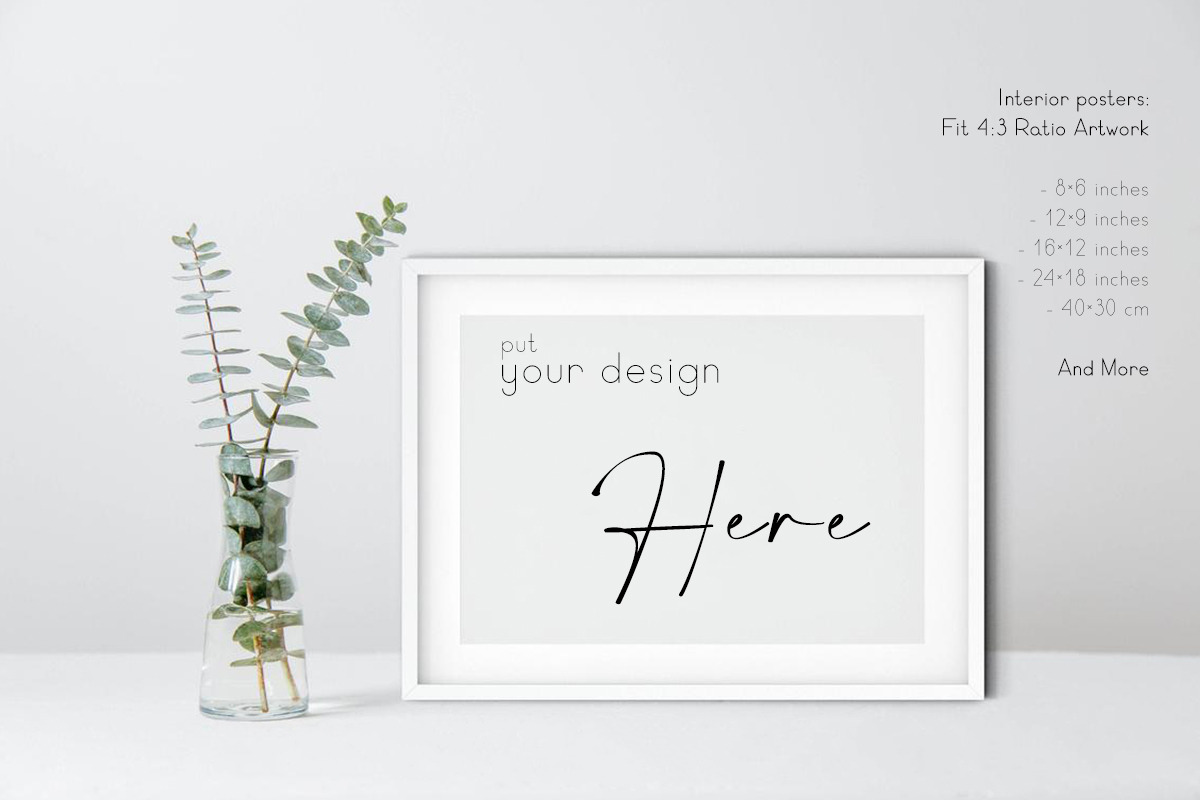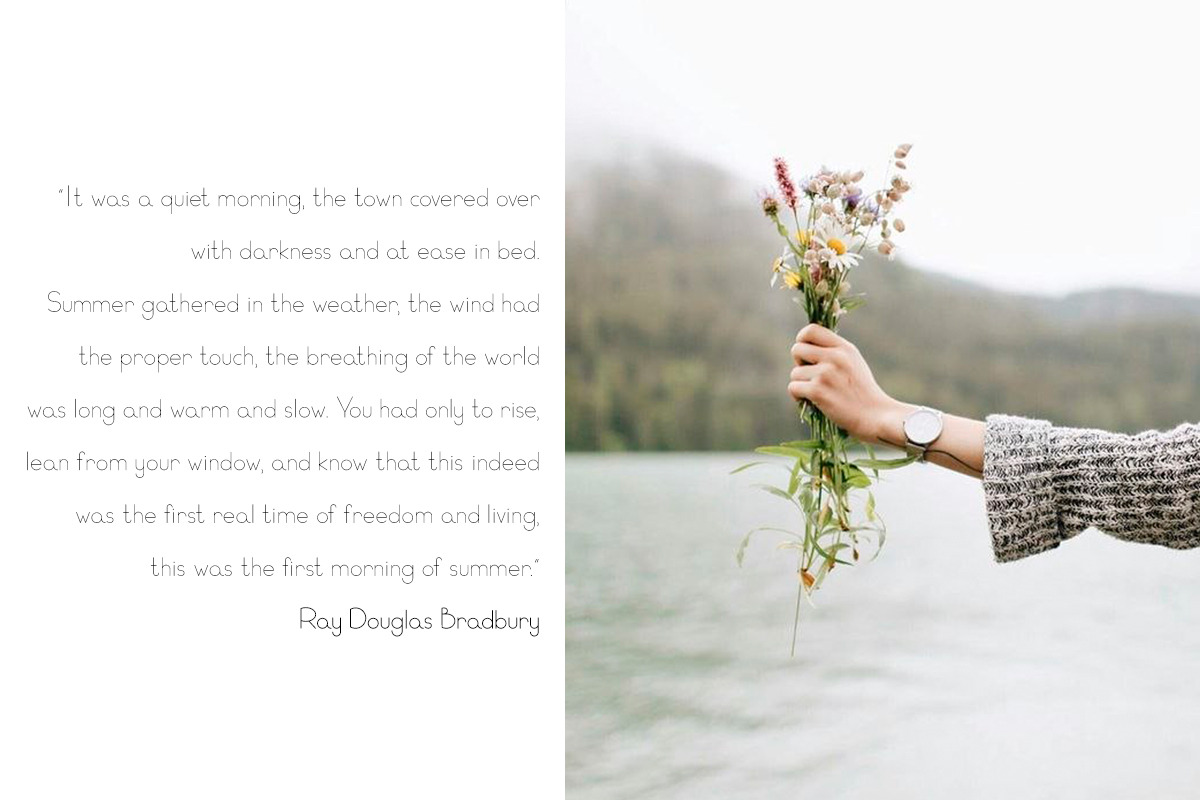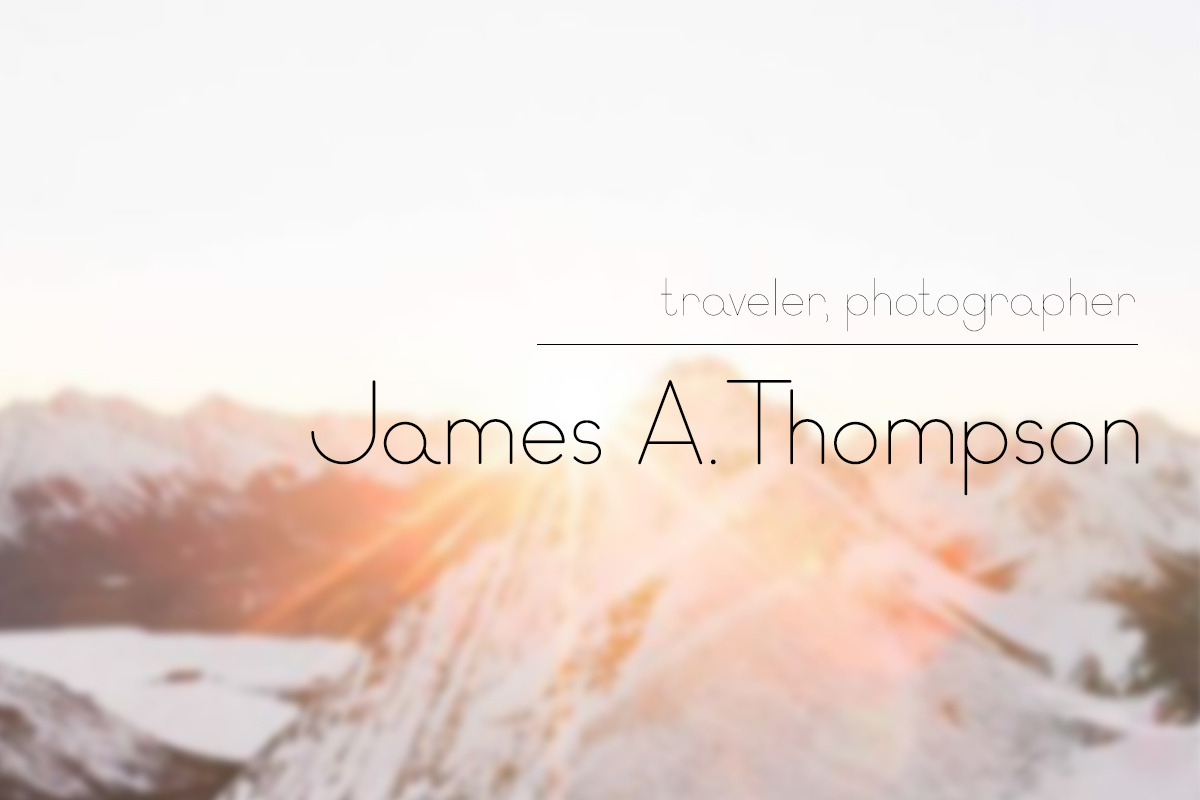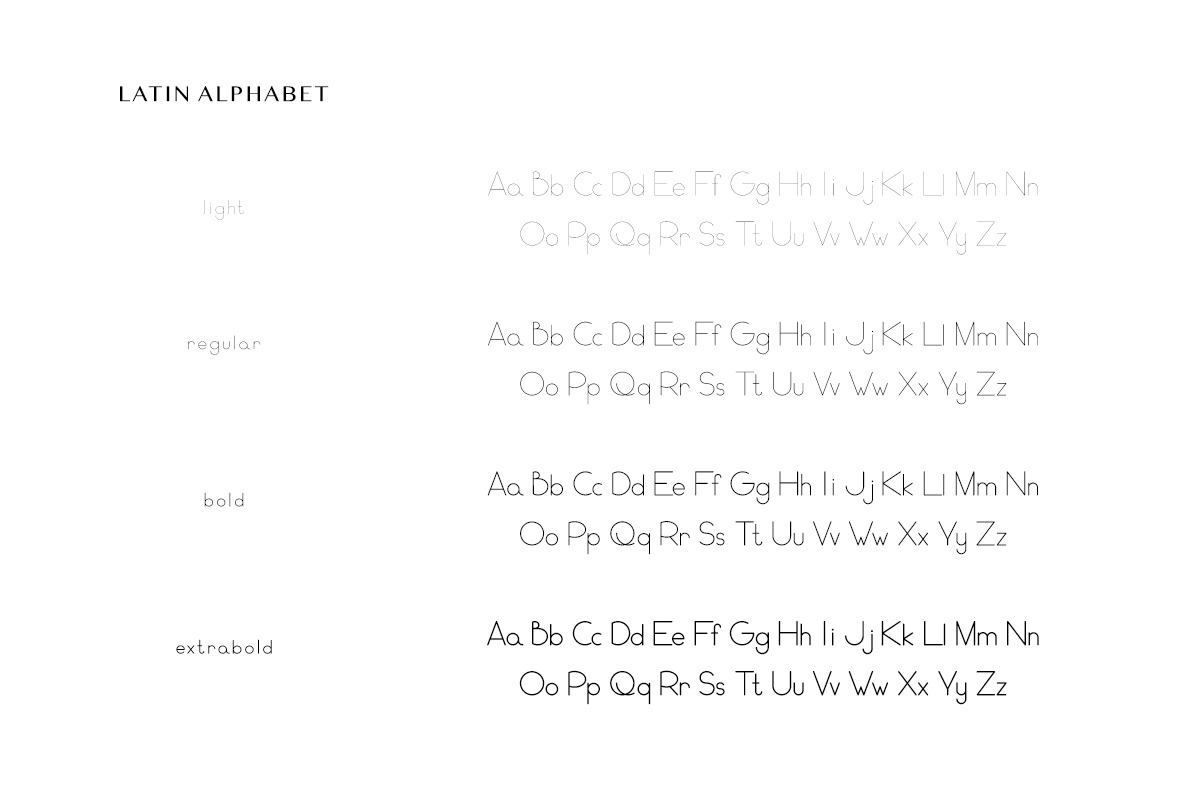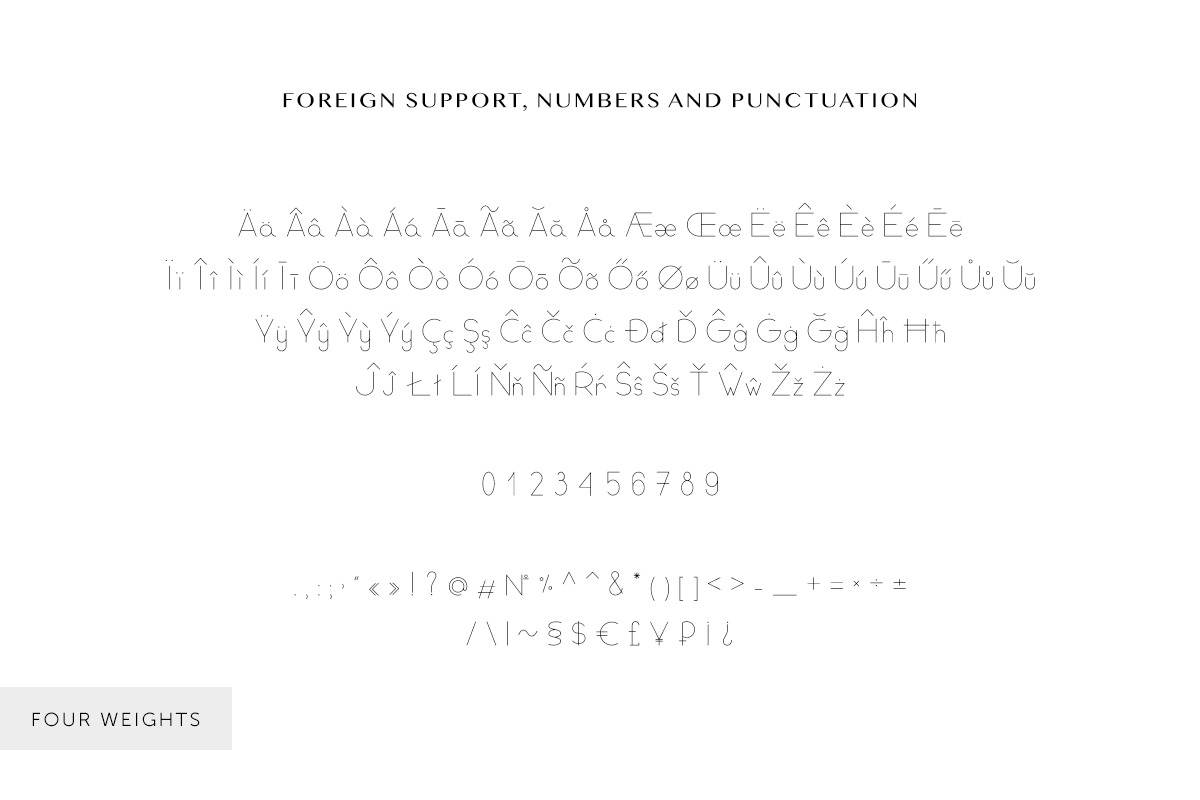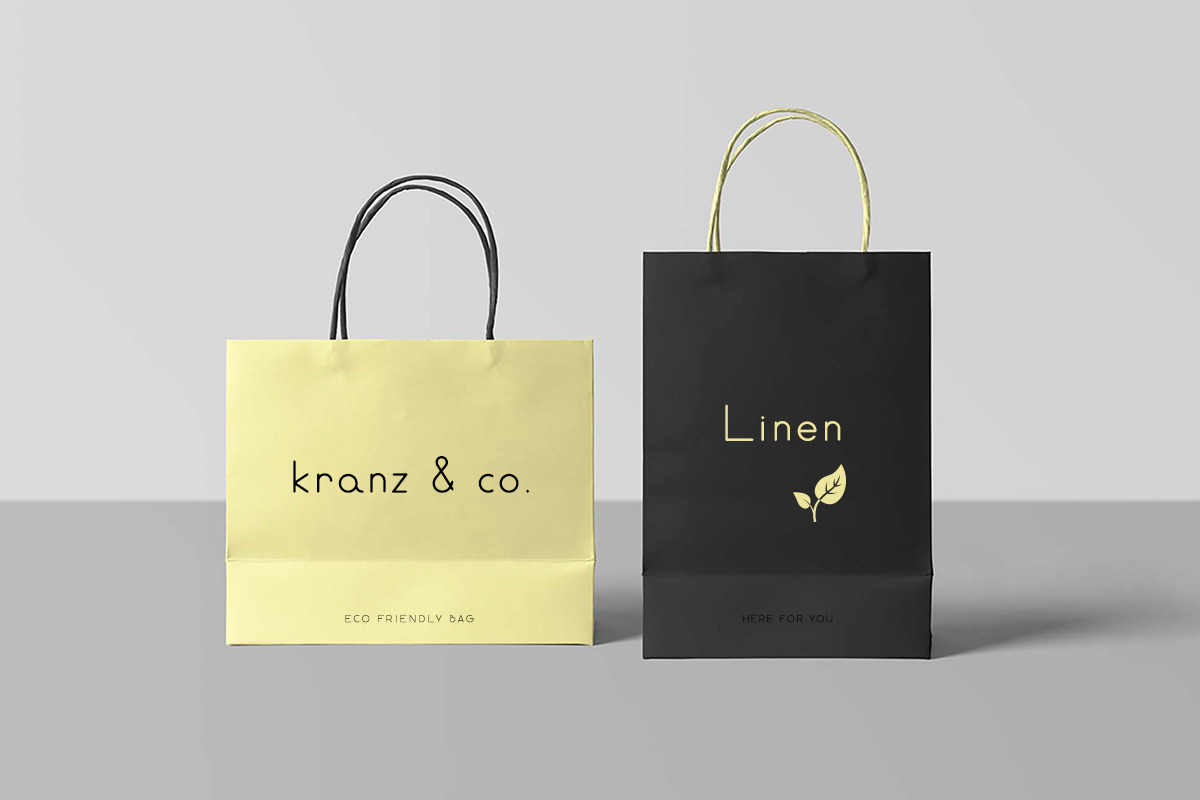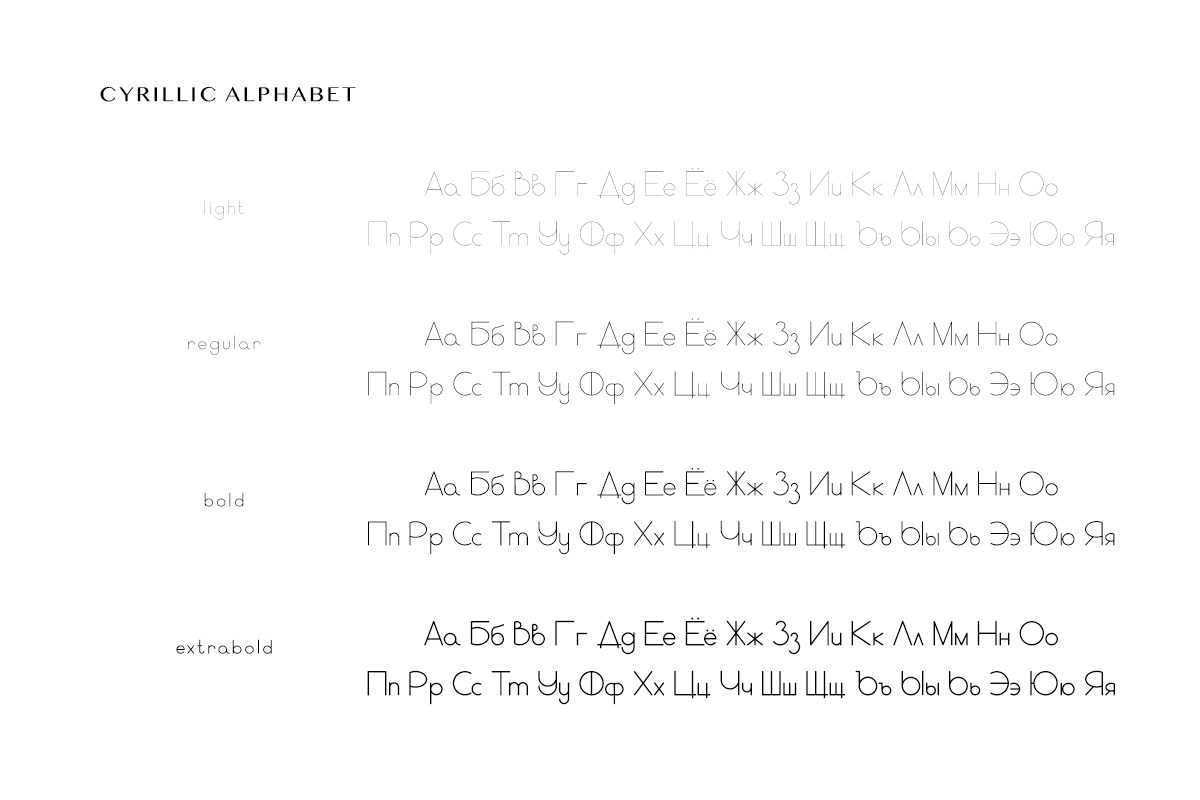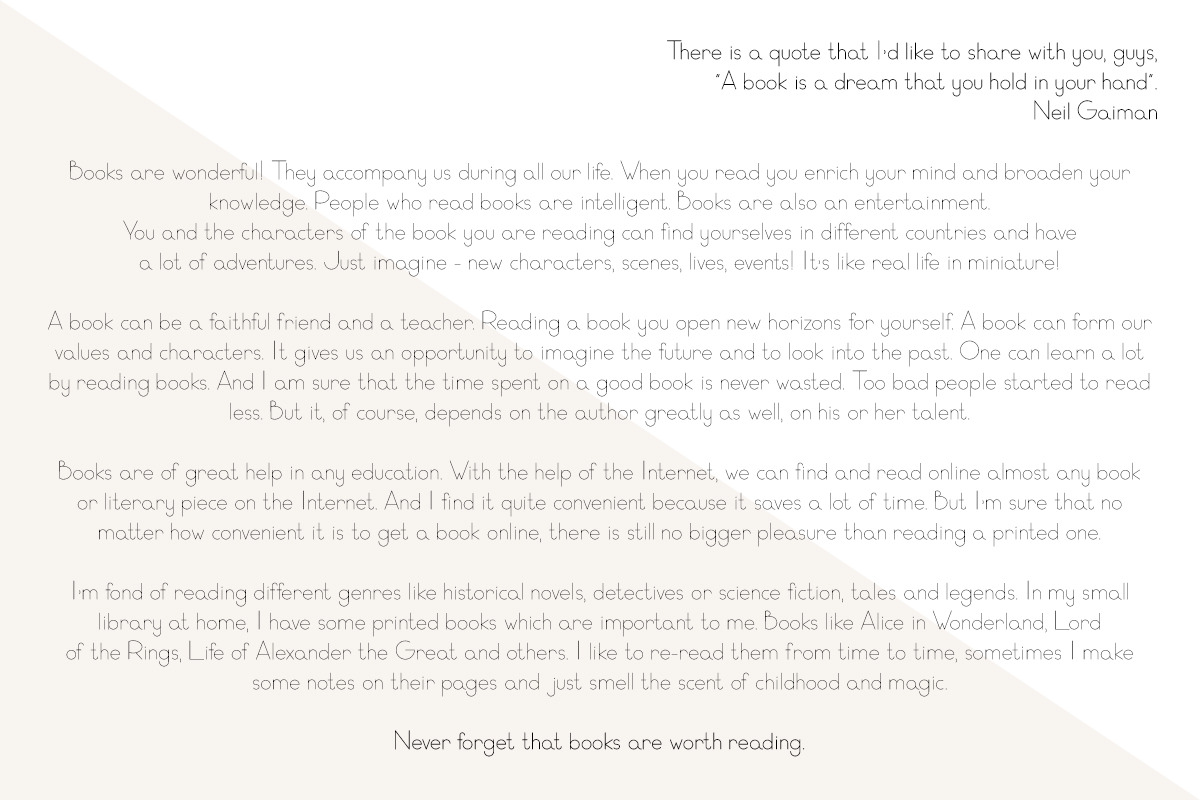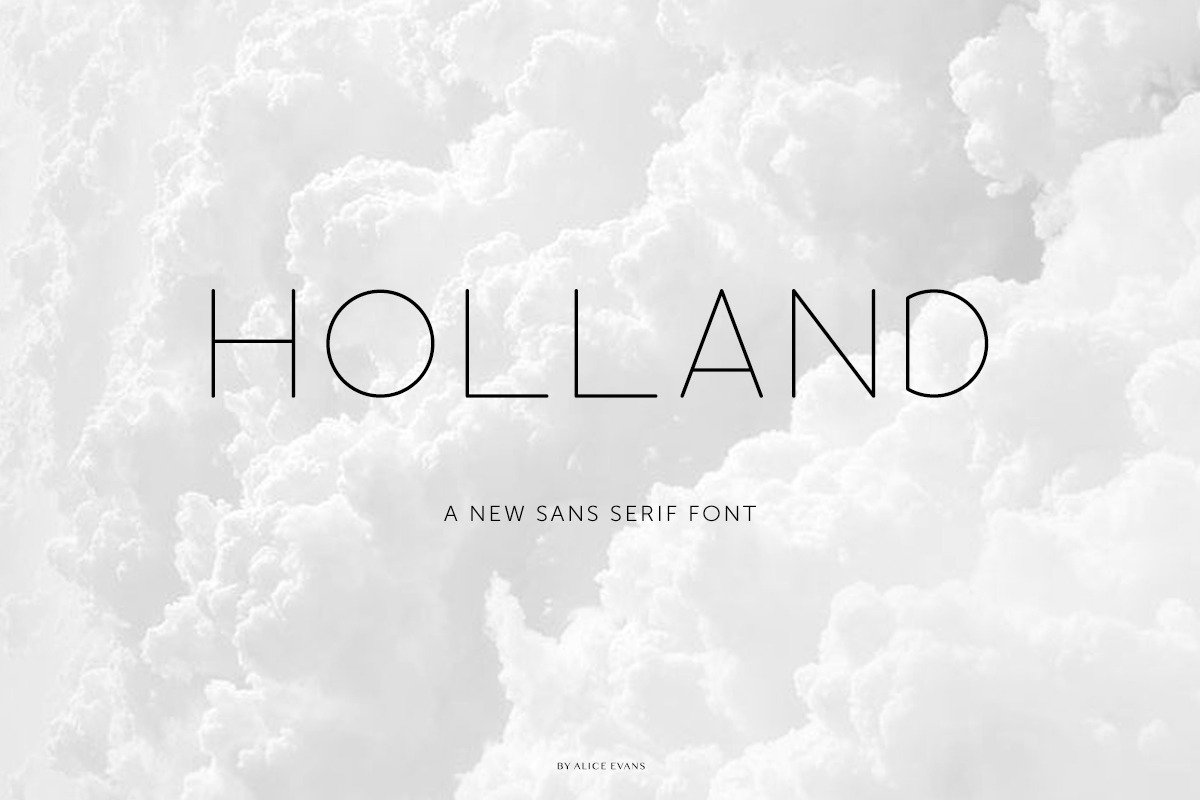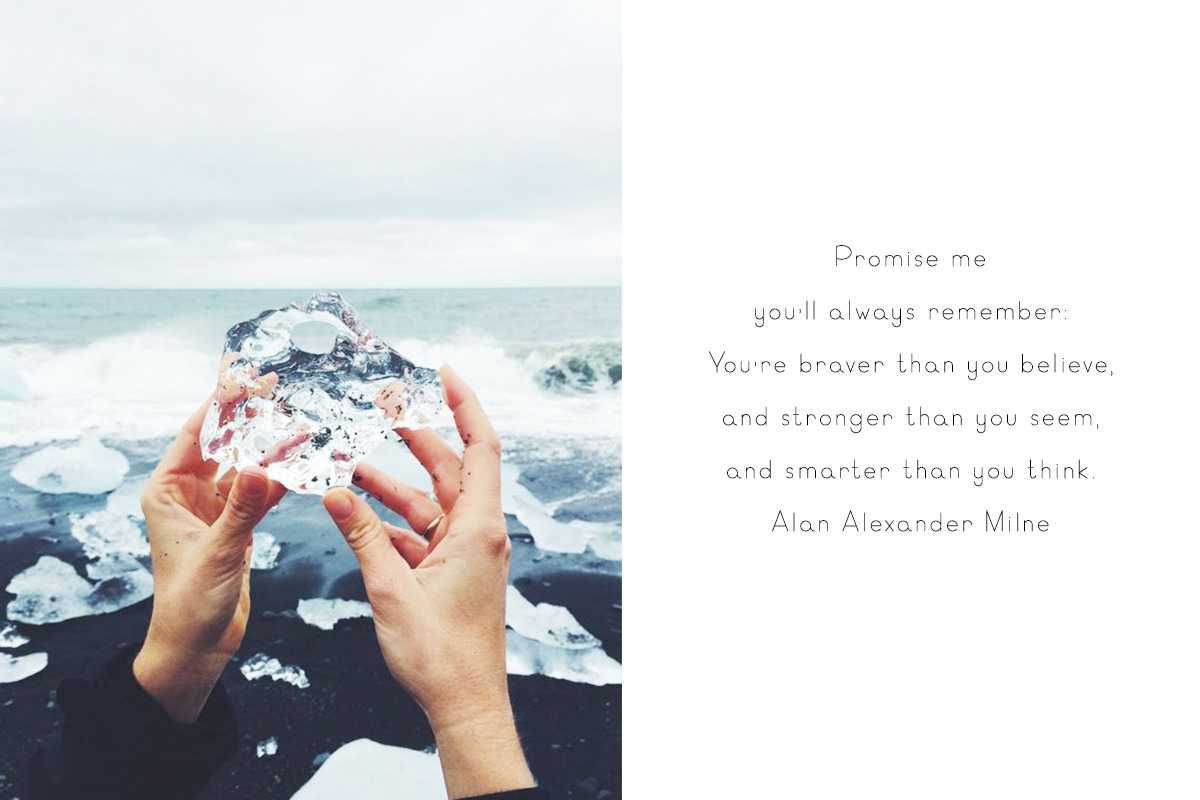
Holland Sans Serif Typeface
Hi, I'm glad to present you my typeface Holland.
It's a sans serif Latin and Cyrillic alphabets with foreign support, glyphs, numbers and punctuation symbols.
**This typeface has 4 versions of outlines: light, regular, bold and extrabold. The package contains an Open Type Format files (.OTF):